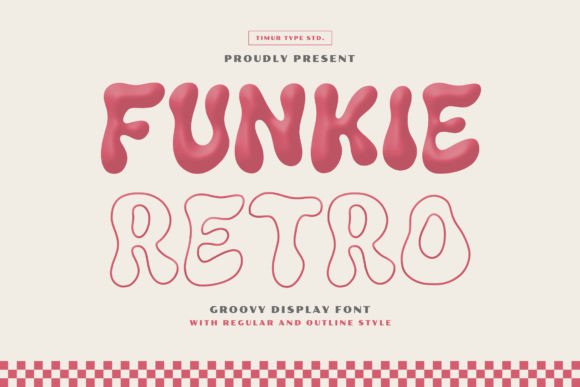
Funkie Retro Font: The Ultimate Display Font for Creative Projects
In the world of typography, fonts play a crucial role in conveying the tone and personality of a brand or creative project. With the vast array of fonts available, it can be challenging to find the perfect one that stands out from the rest. However, if you’re looking for a font that exudes uniqueness and creativity, look no further than the Funkie Retro Font. In this article, we’ll dive into the world of Funkie Retro Font, exploring its features, benefits, and uses, and why it’s an incredibly unique display font that’s sure to become a true favorite among designers and creatives.
What is Funkie Retro Font?
Funkie Retro Font is a masterfully designed display font that’s perfect for creative projects that require a touch of nostalgia and playfulness. This font is not your average, run-of-the-mill font. It’s a unique and eye-catching typeface that’s sure to grab attention and leave a lasting impression. With its bold and quirky design, Funkie Retro Font is ideal for use in a variety of creative projects, from branding and advertising to packaging and digital media.
Key Features of Funkie Retro Font
So, what makes Funkie Retro Font so special? Here are some of its key features:
- Unique Design: Funkie Retro Font boasts a one-of-a-kind design that’s sure to turn heads. Its bold and quirky style is perfect for creative projects that require a touch of personality.
- Display Font: Funkie Retro Font is a display font, making it perfect for use in headlines, titles, and other attention-grabbing applications.
- Highly Versatile: Despite its unique design, Funkie Retro Font is highly versatile and can be used in a variety of creative projects, from print to digital media.
- Easy to Read: Despite its bold and playful design, Funkie Retro Font is surprisingly easy to read, making it perfect for use in a variety of applications.
Benefits of Using Funkie Retro Font
So, why should you choose Funkie Retro Font for your creative projects? Here are just a few benefits of using this amazing font:
- Adds Personality: Funkie Retro Font adds a touch of personality to your creative projects, setting them apart from the rest.
- Grabs Attention: With its bold and quirky design, Funkie Retro Font is sure to grab attention and leave a lasting impression.
- Versatile: Funkie Retro Font can be used in a variety of creative projects, from branding and advertising to packaging and digital media.
- Easy to Use: Funkie Retro Font is easy to use and can be easily integrated into your creative projects.
Uses of Funkie Retro Font
Funkie Retro Font is a highly versatile font that can be used in a variety of creative projects, including:
- Branding: Use Funkie Retro Font to create bold and eye-catching logos and branding materials.
- Advertising: Funkie Retro Font is perfect for use in advertising, from billboards to print ads.
- Packaging: Add a touch of personality to your packaging with Funkie Retro Font.
- Digital Media: Funkie Retro Font can be used in a variety of digital media, from social media graphics to website headers.
Tips for Using Funkie Retro Font
Here are a few tips for using Funkie Retro Font in your creative projects:
- Use it Sparingly: While Funkie Retro Font is a bold and eye-catching font, it can be overwhelming if used too much. Use it sparingly to create maximum impact.
- Pair it with Other Fonts: Funkie Retro Font can be paired with other fonts to create a unique and visually appealing combination.
- Experiment with Colors: Funkie Retro Font looks great in a variety of colors, so don’t be afraid to experiment and find the perfect color scheme for your project.
In conclusion, Funkie Retro Font is an incredibly unique display font that’s sure to become a true favorite among designers and creatives. With its bold and quirky design, highly versatile nature, and ease of use, Funkie Retro Font is perfect for creative projects that require a touch of personality and playfulness. Whether you’re working on a branding project, advertising campaign, or packaging design, Funkie Retro Font is sure to bring each of your creative ideas to the highest level!